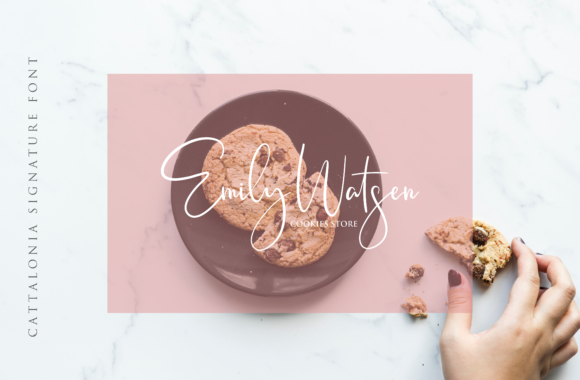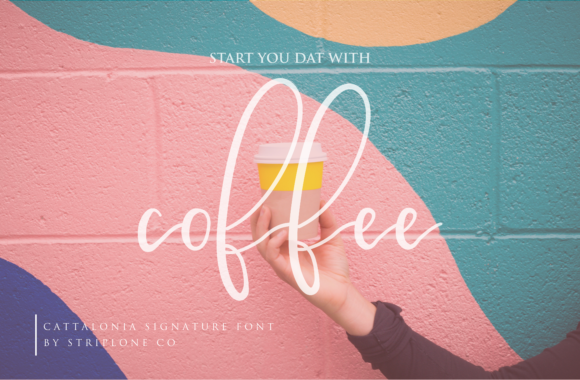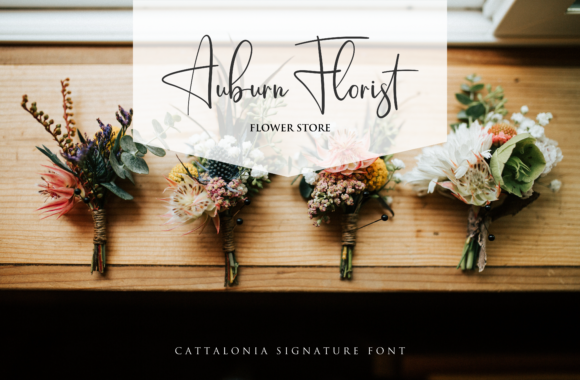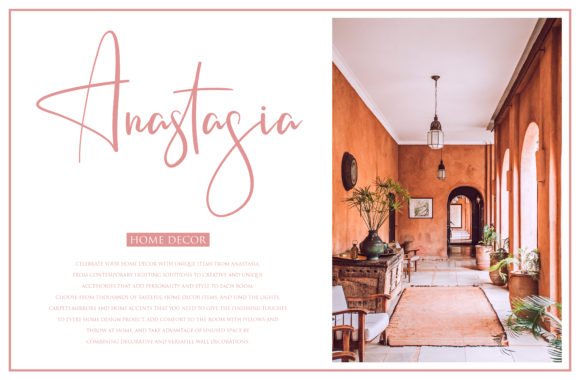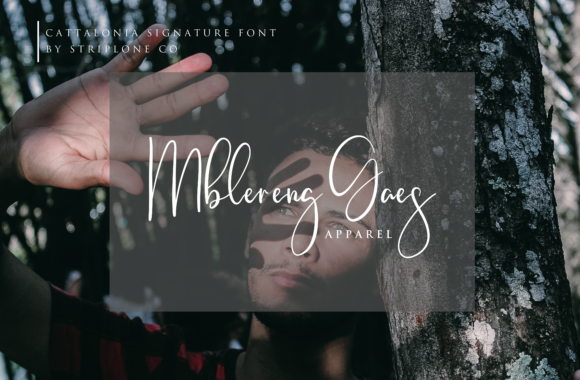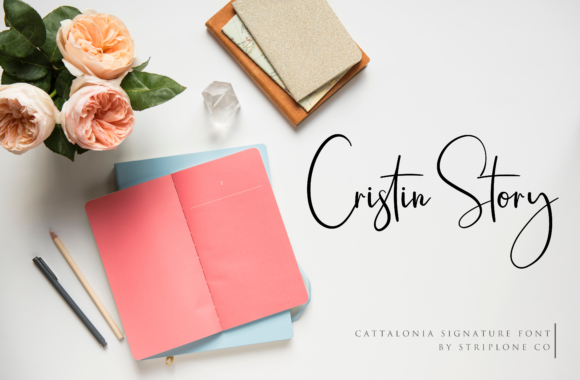
Cattalonia Font: Elevate Your Designs with Elegant Signature Typeface
The Cattalonia font is a stunning signature typeface that has taken the design world by storm. With its natural curves and shapes, this beautiful font is perfect for designers and crafters looking to add a touch of elegance to their work. In this article, we’ll dive into the world of Cattalonia font, exploring its features, uses, and benefits.
What is Cattalonia Font?
The Cattalonia font is a carefully crafted typeface that exudes sophistication and style. Its unique design combines natural curves and shapes, creating a distinctive look that’s both modern and timeless. This signature font is perfect for adding a personal touch to your designs, making them stand out from the crowd.
Key Features of Cattalonia Font
- Natural Curves and Shapes: The Cattalonia font boasts organic curves and shapes that give it a unique and elegant appearance.
- Signature Style: This font is designed to add a personal touch to your designs, making it perfect for signatures, logos, and branding.
- Versatile: The Cattalonia font can be used for various purposes, including watermarks, branding, logos, and more.
- High-Quality: This font is crafted with precision and attention to detail, ensuring a high-quality output.
Uses of Cattalonia Font
The Cattalonia font is incredibly versatile, making it suitable for a wide range of design applications. Here are some of the ways you can use this beautiful font:
- Watermarks: Add a touch of elegance to your watermarks with the Cattalonia font.
- Branding: Use this font to create stunning brand logos, business cards, and letterheads.
- Logos: The Cattalonia font is perfect for creating unique and memorable logos that reflect your brand’s personality.
- Stationery: Elevate your stationery designs with this beautiful font, perfect for creating stylish greeting cards, invitations, and more.
- Digital Designs: The Cattalonia font can also be used in digital designs, such as social media graphics, blog headers, and website titles.
Benefits of Using Cattalonia Font
The Cattalonia font offers numerous benefits to designers and crafters. Here are some of the advantages of using this stunning font:
- Unique and Memorable: The Cattalonia font helps create unique and memorable designs that stand out from the crowd.
- Elegant and Sophisticated: This font adds a touch of elegance and sophistication to your designs, perfect for luxury brands and high-end products.
- Versatile: The Cattalonia font can be used in various design applications, making it a valuable addition to your font library.
- Easy to Read: This font is designed to be easy to read, making it perfect for body text and headings.
Tips for Using Cattalonia Font
To get the most out of the Cattalonia font, here are some tips to keep in mind:
- Pair with Other Fonts: Experiment with pairing the Cattalonia font with other fonts to create stunning font combinations.
- Adjust Font Size: Adjust the font size to suit your design needs, ensuring optimal readability and visual impact.
- Use in Moderation: Use the Cattalonia font in moderation to avoid overwhelming your design.
The Cattalonia font is a beautiful signature typeface that can elevate your designs to new heights. With its natural curves and shapes, this font is perfect for designers and crafters looking to add a touch of elegance to their work. Whether you’re creating watermarks, branding, logos, or more, the Cattalonia font is a versatile and high-quality choice. By following the tips outlined in this article, you can get the most out of this stunning font and create designs that are truly unforgettable.